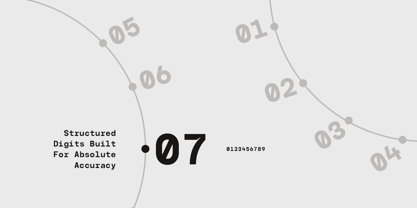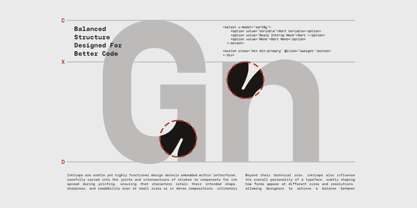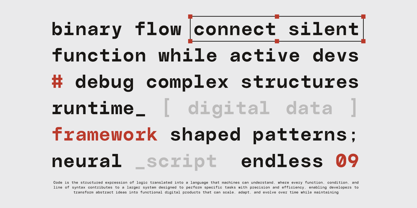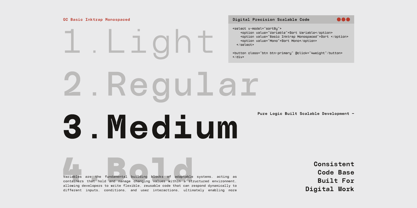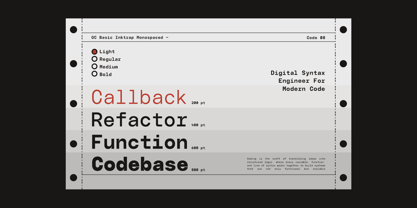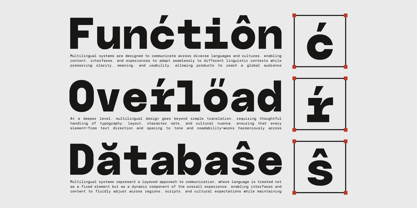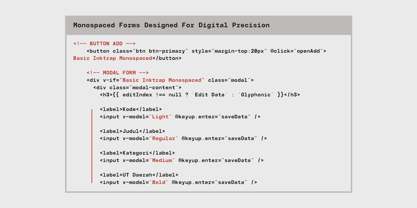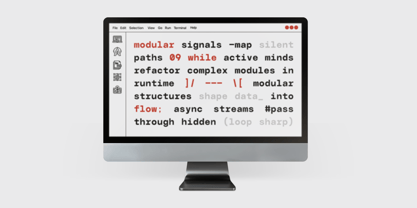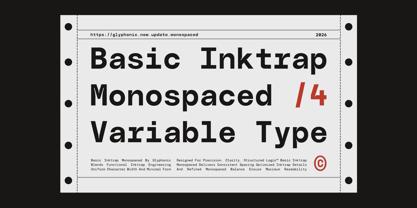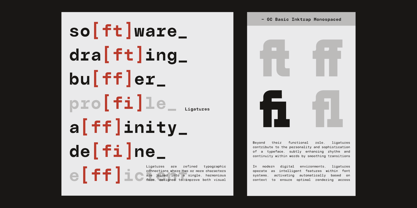
GC Basic Inktrap Monospace
by Onyx Studio
The GC Basic Inktrap Monospace Font Family was designed by Muhammad Hafiizh Solana and published by Onyx Studio. GC Basic Inktrap Monospace contains 4 styles and family package options. More about this family
GC Basic Inktrap – Variable Monospace is a contemporary monospaced typeface designed for precision, clarity, and structured visual rhythm. Built with functional inktrap engineering and uniform character spacing, Basic Inktrap delivers a clean and technical typographic voice suited for modern digital communication.
With its bold monospace construction, sharp geometry, and optimized inktrap details—as seen in its consistent letter widths and refined cuts—**GC Basic Inktrap** creates a balanced and highly readable appearance. The structured system enhances alignment and spacing, making it ideal for coding visuals, interface design, editorial systems, tech branding, and modern grid-based layouts.
As a variable font, GC Basic Inktrap offers flexible weight control, allowing designers to build strong hierarchy while maintaining the consistency expected from a monospaced typeface. Despite its technical foundation, the font preserves a modern and approachable character across all weights.
Crafted for both digital and print environments, GC Basic Inktrap blends functional precision with contemporary aesthetics, bringing clarity, rhythm, and structured logic into every composition.
Features:
- Variable Font (Adjustable Weight Axis)
- Monospaced Construction
- Functional Inktrap Detailing
- Uppercase & Lowercase
- Numbers & Punctuation
- Structured & Readable Letterforms
- Multilingual Support (170+ Languages)
GC Basic Inktrap — precision-driven monospace with modern inktrap clarity.
Designers: Muhammad Hafiizh Solana
Foundry: Onyx Studio